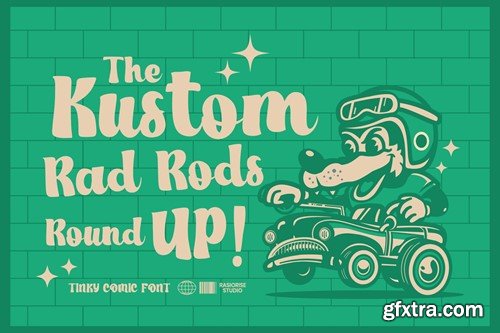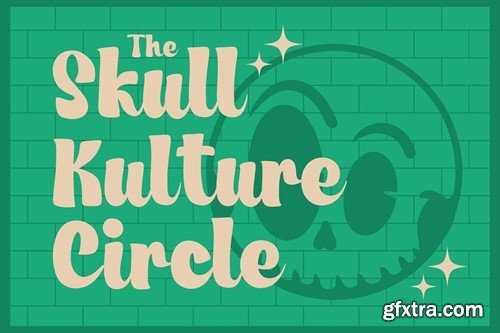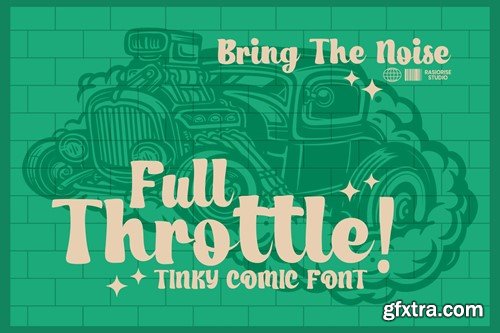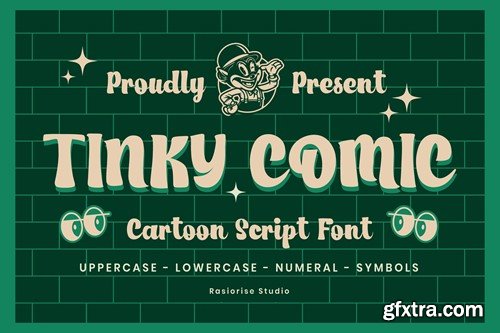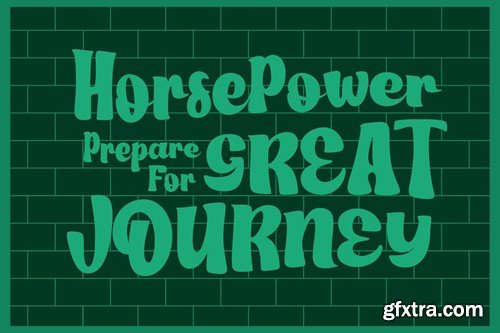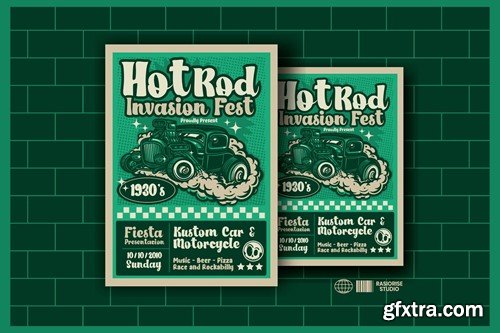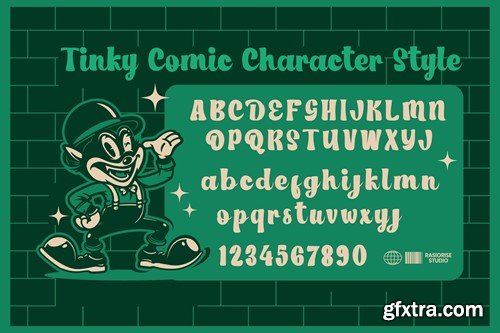
Tinky Comic - Script Western Cartoon Font
Presenting Tinky Comic - Script Western Cartoon by Rasiorise Studio
The font Tinky Comic - Script Western Cartoon Font is now available for people searching for a Western Italic Cartoon Font. The 1930's western italic style cartoon Font shape like a Hotrod, Rockabilly, Custom Car and Motorcycle served as inspiration for this design. This font is reguler character style . included as the Uppercase and lowercase regular character, Numeral and symbol, were combined to give the typeface a like a italic retro cartoon style.